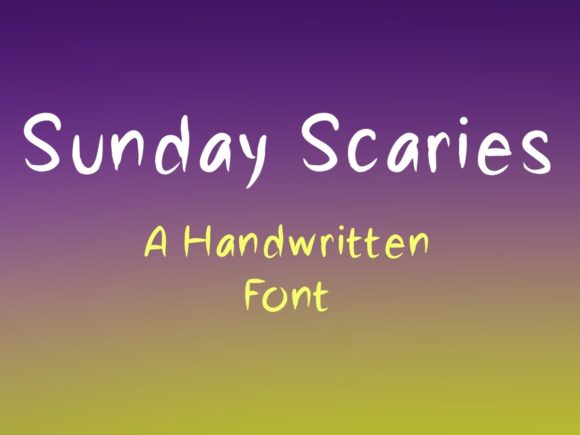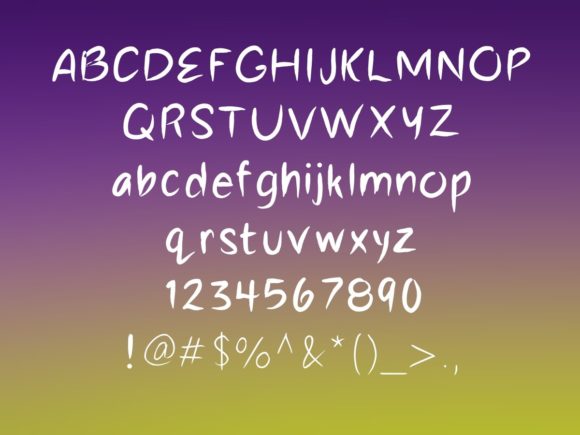
Sunday Scaries Font
About Sunday Scaries Font
Sunday Scaries is a casual handwritten font. Simple and easy to use, this font will be very beautiful if you mix it with your various craft designs.